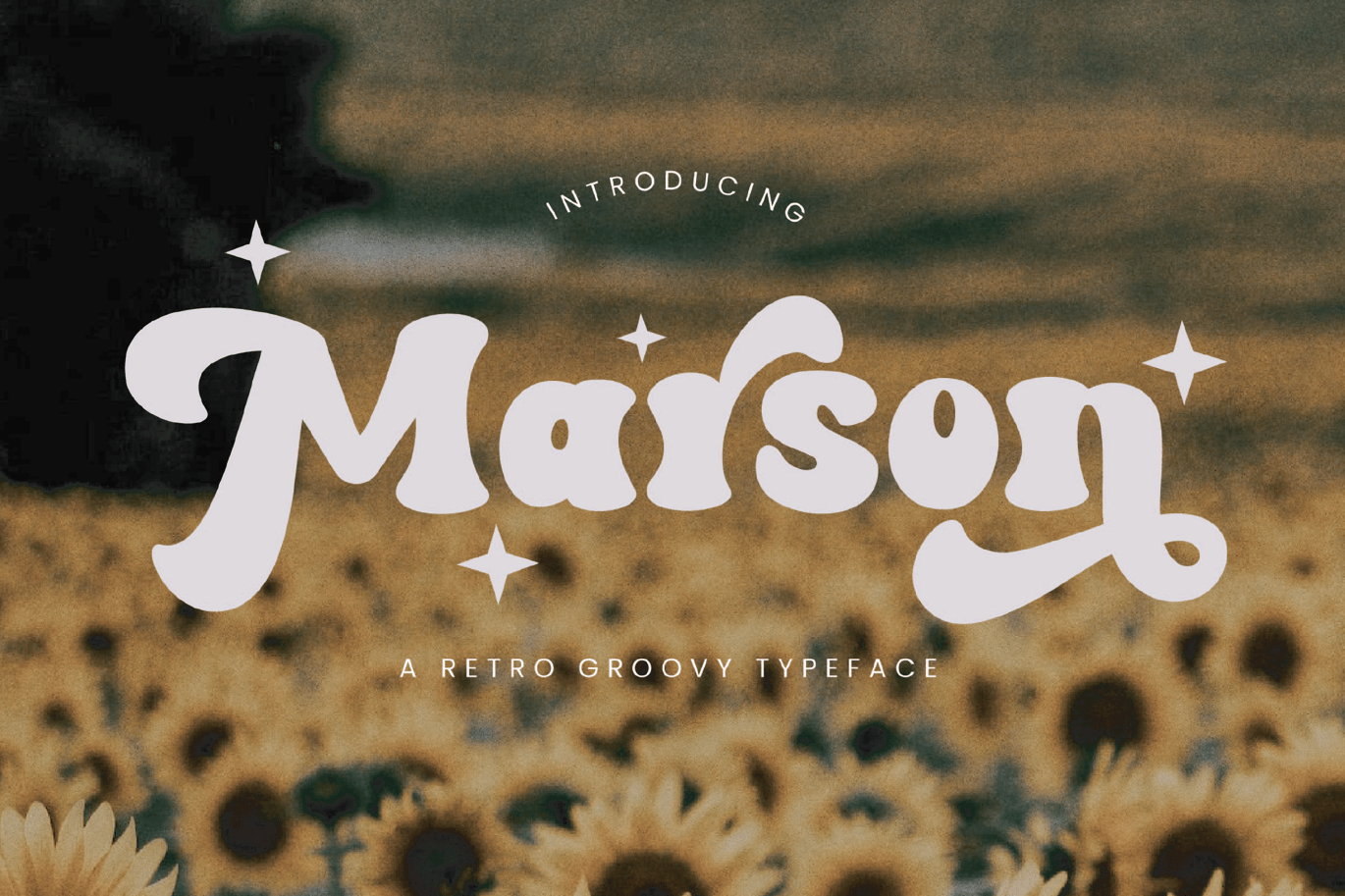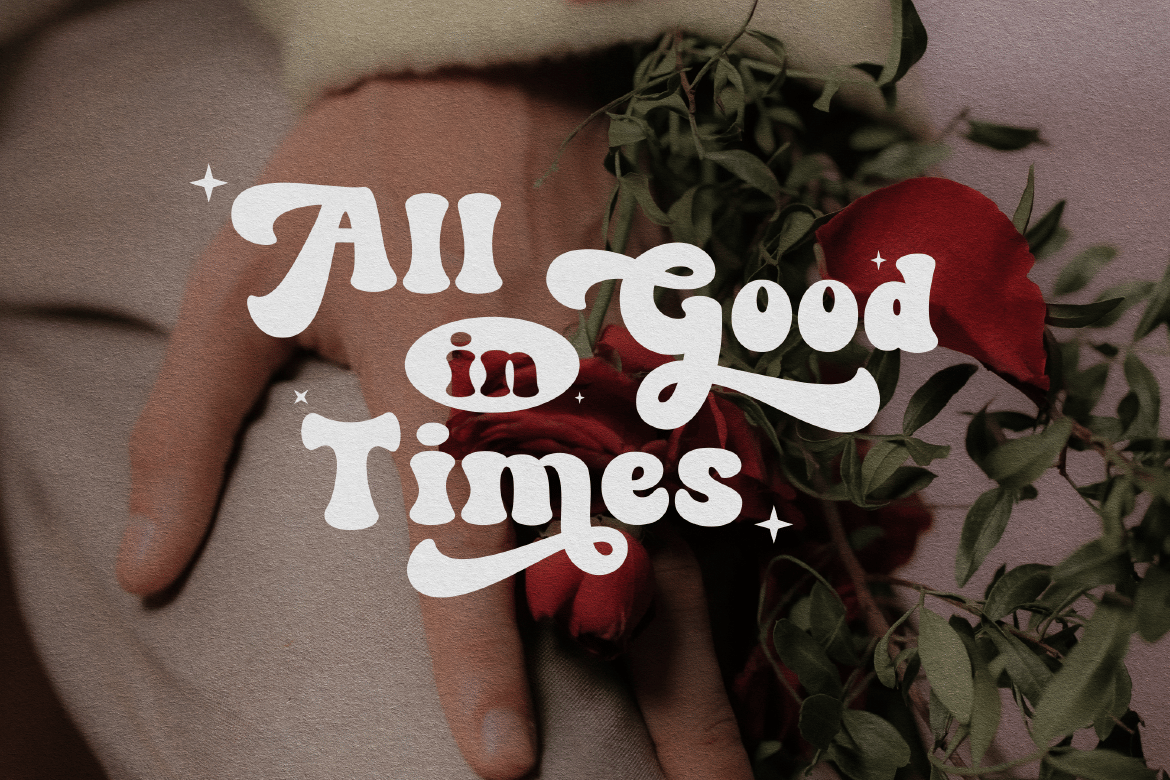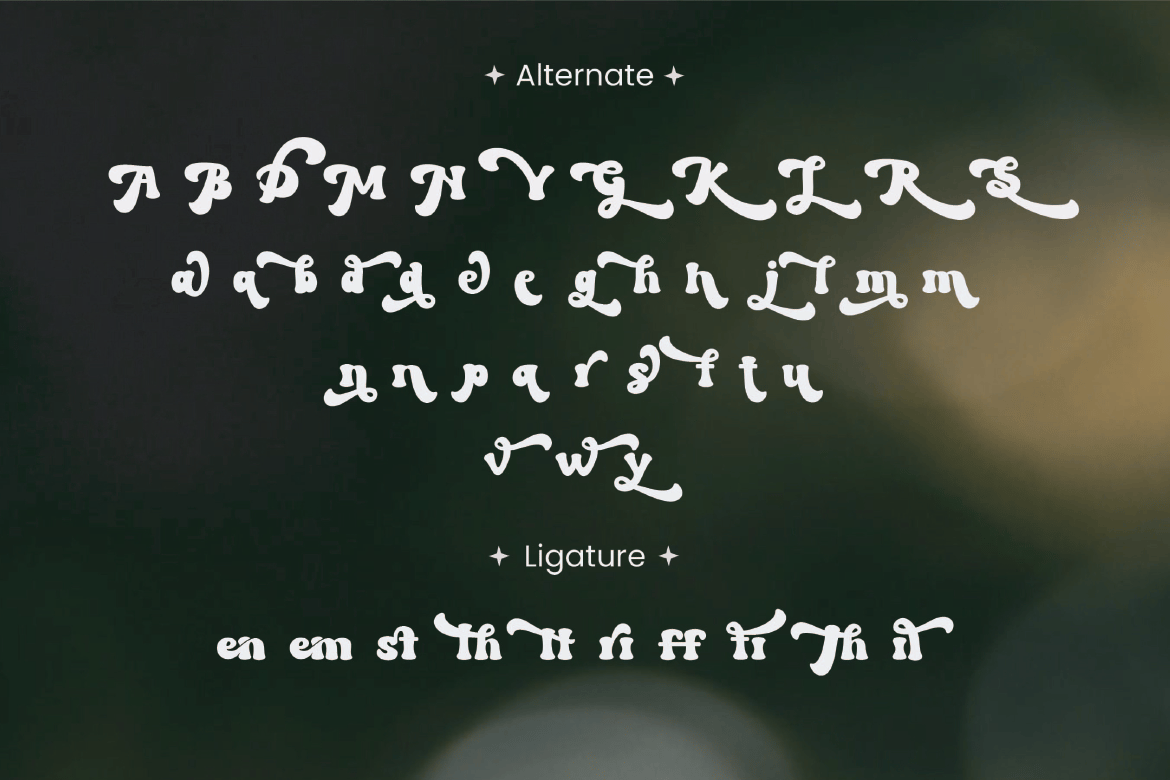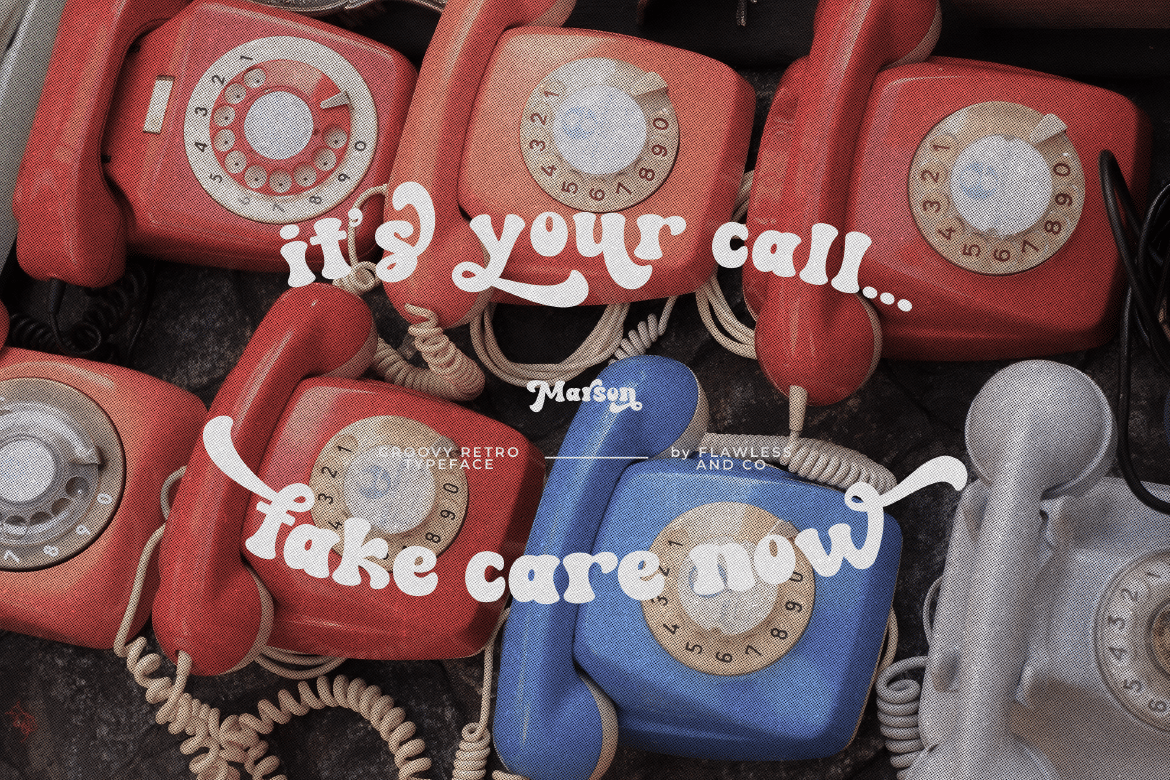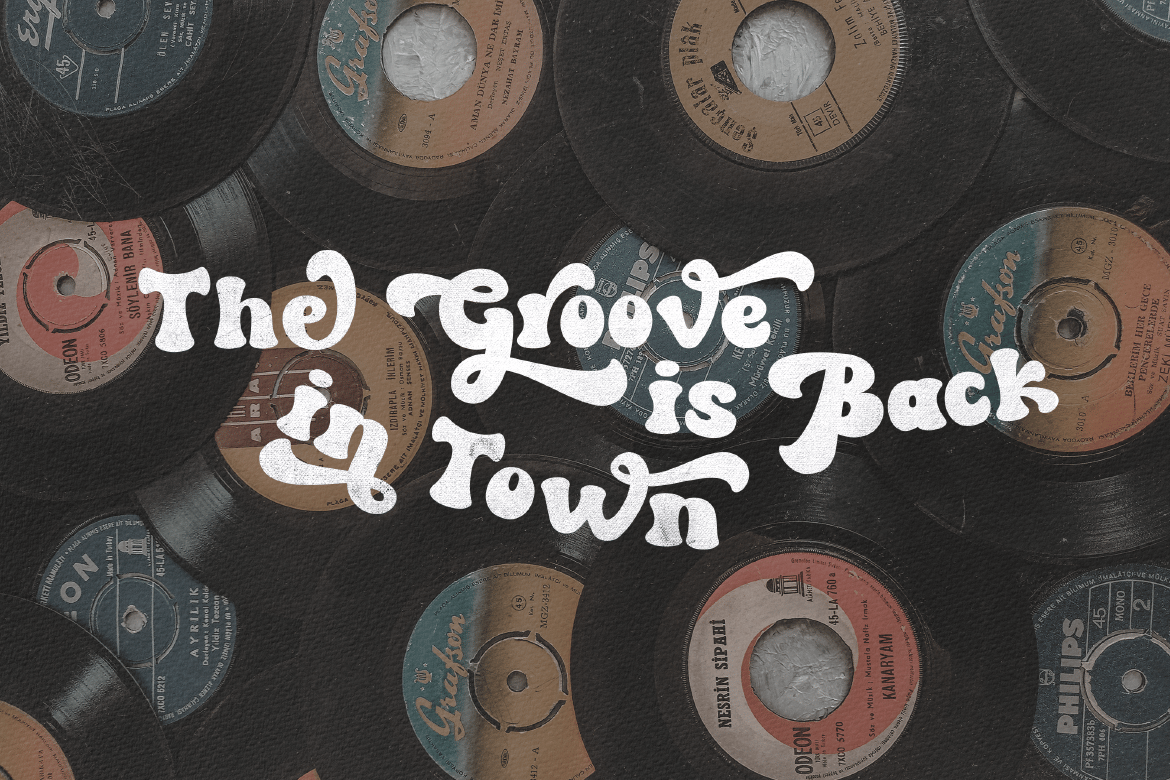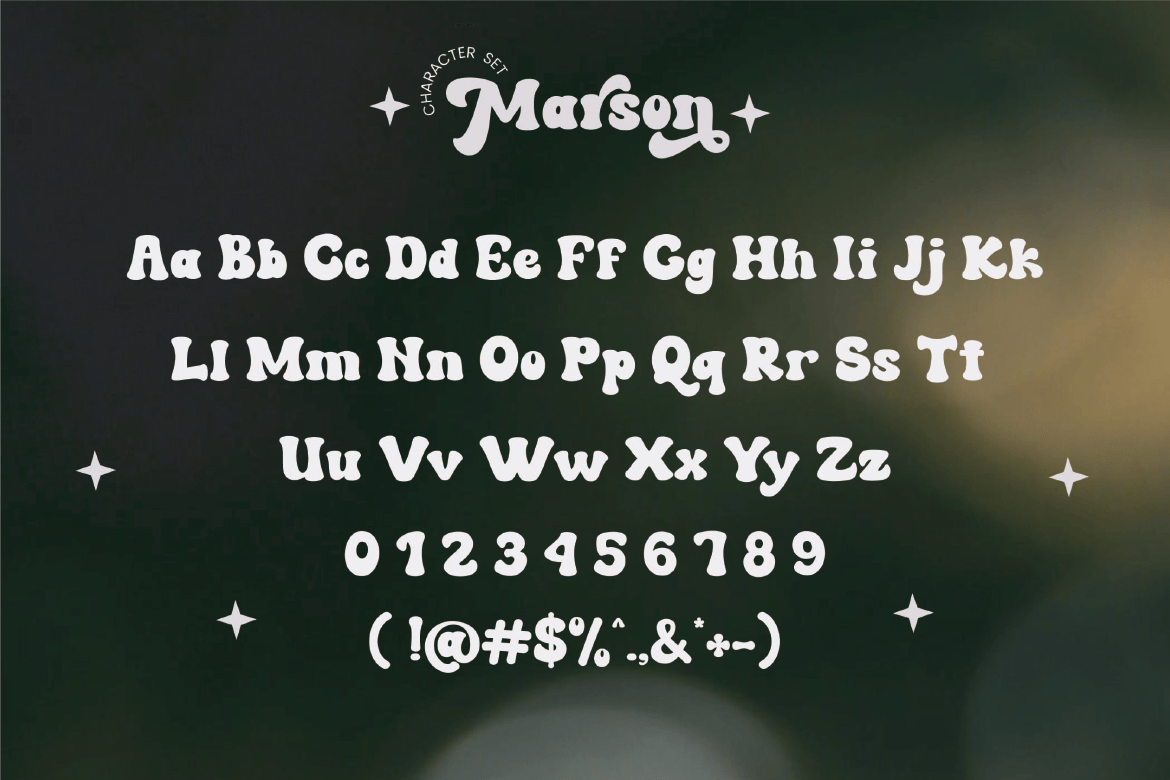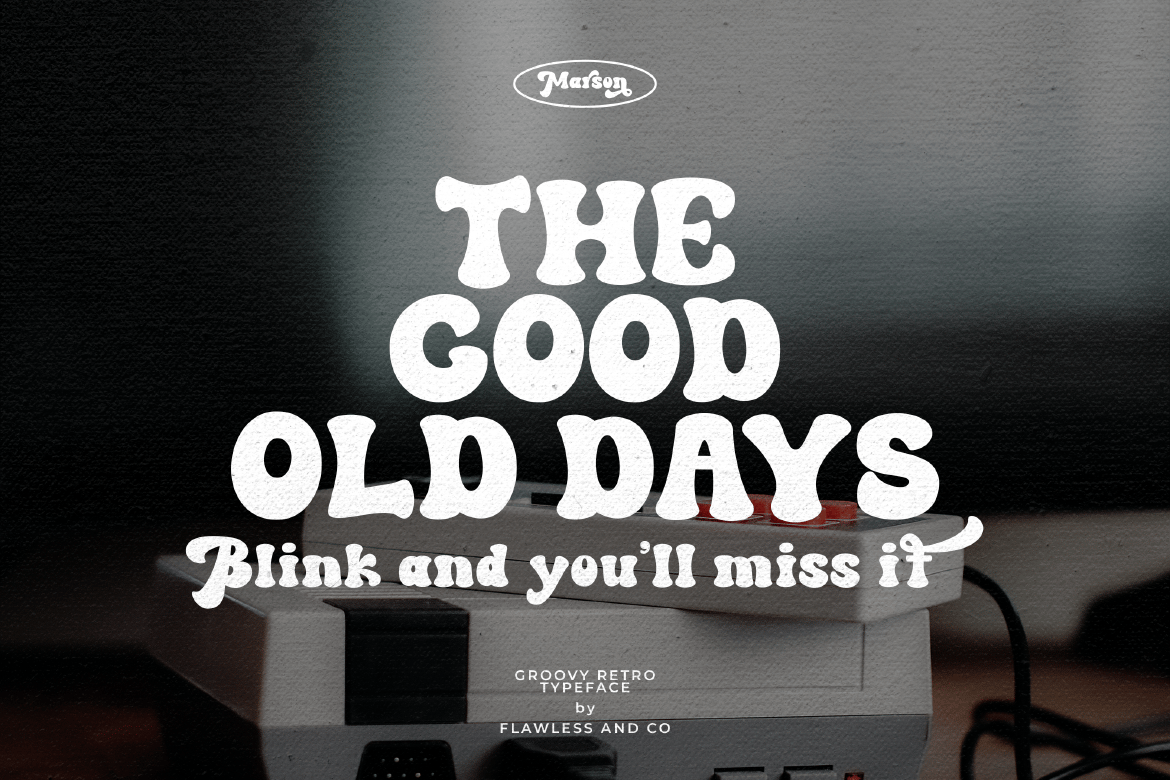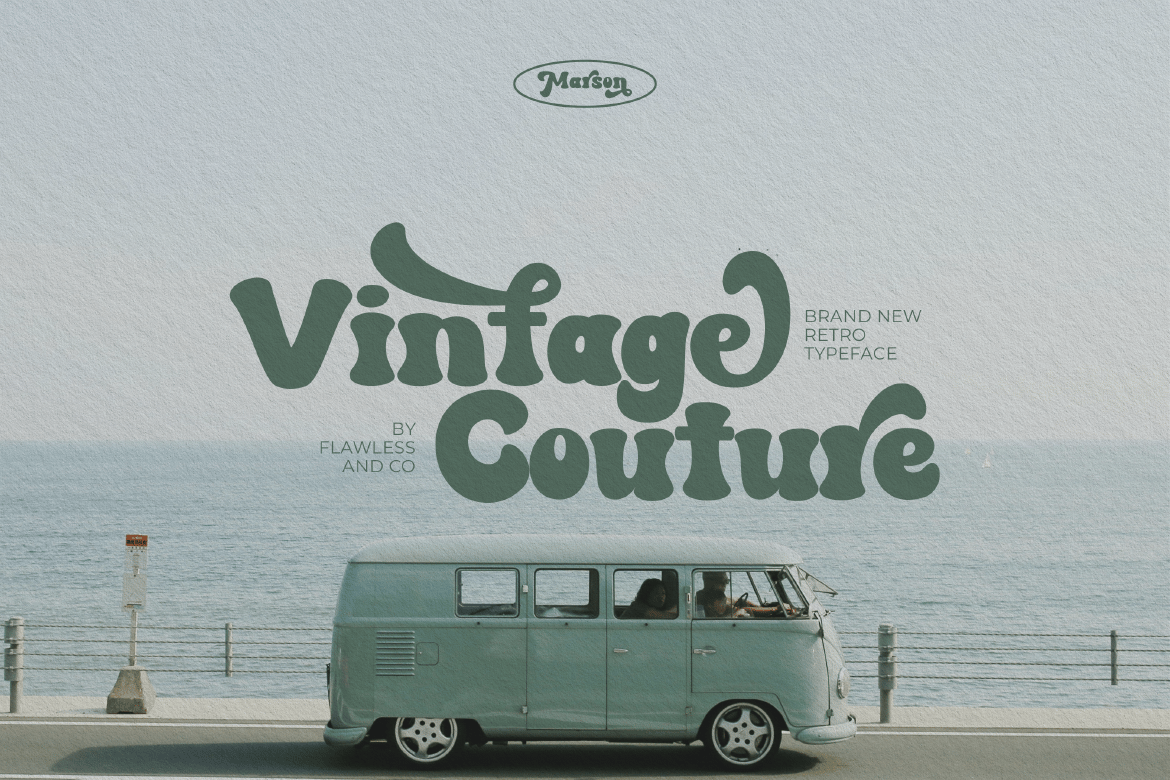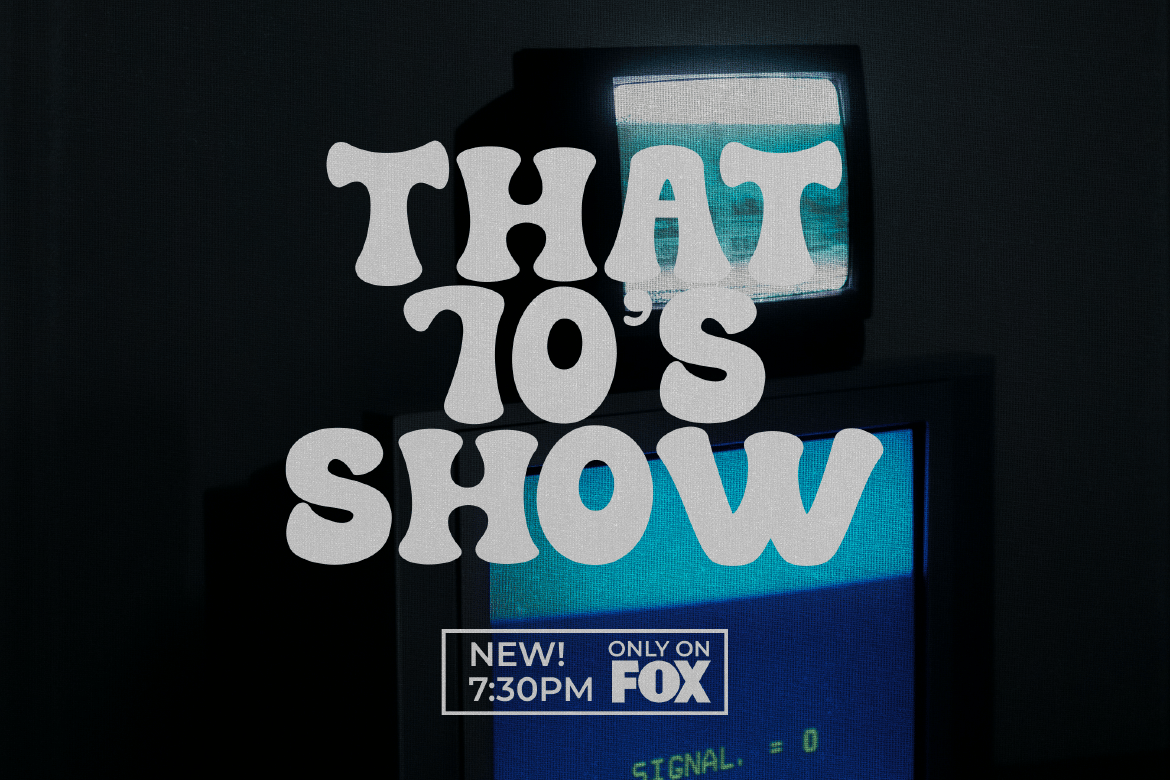
Marson – Retro Groovy Font
Introduction our creation, groovy retro font with various alternates and ligatures, multilingual support, an updated blend of bohemian style, suitable for branding, business, logos, magazines, and others
Italic alphaber 1-z
Alternate Character